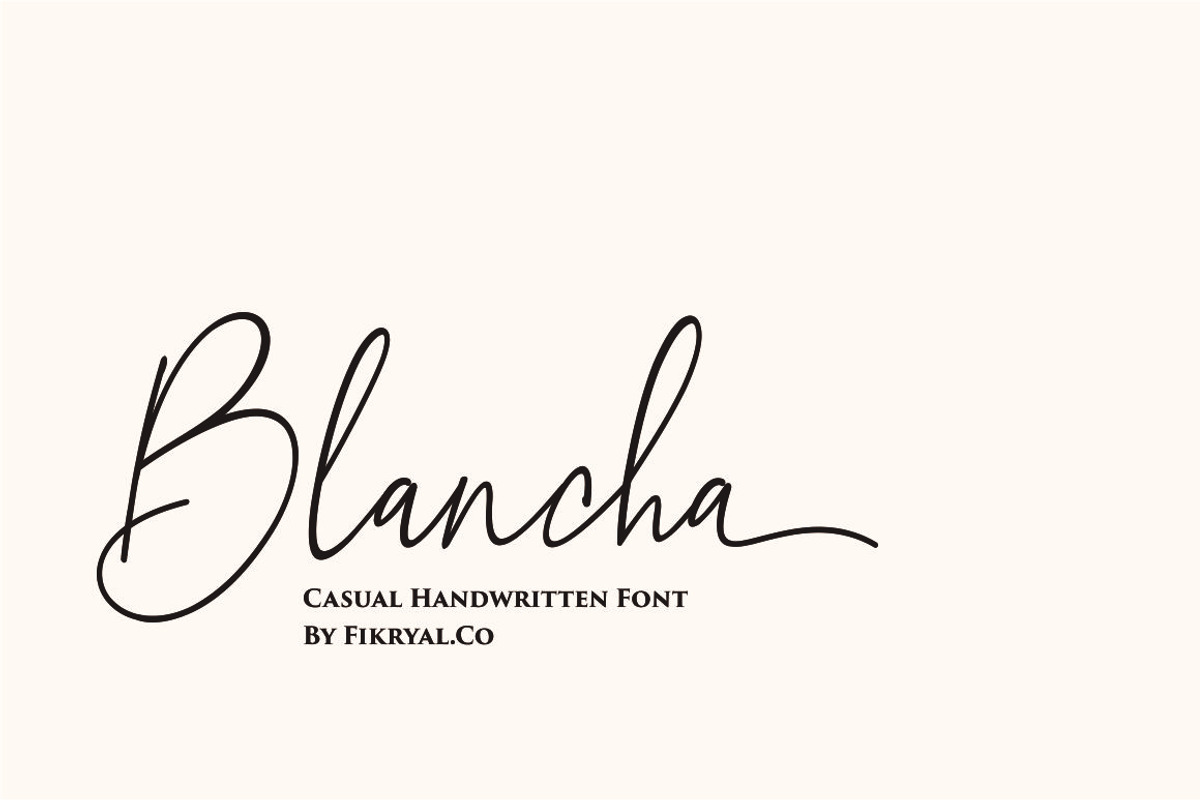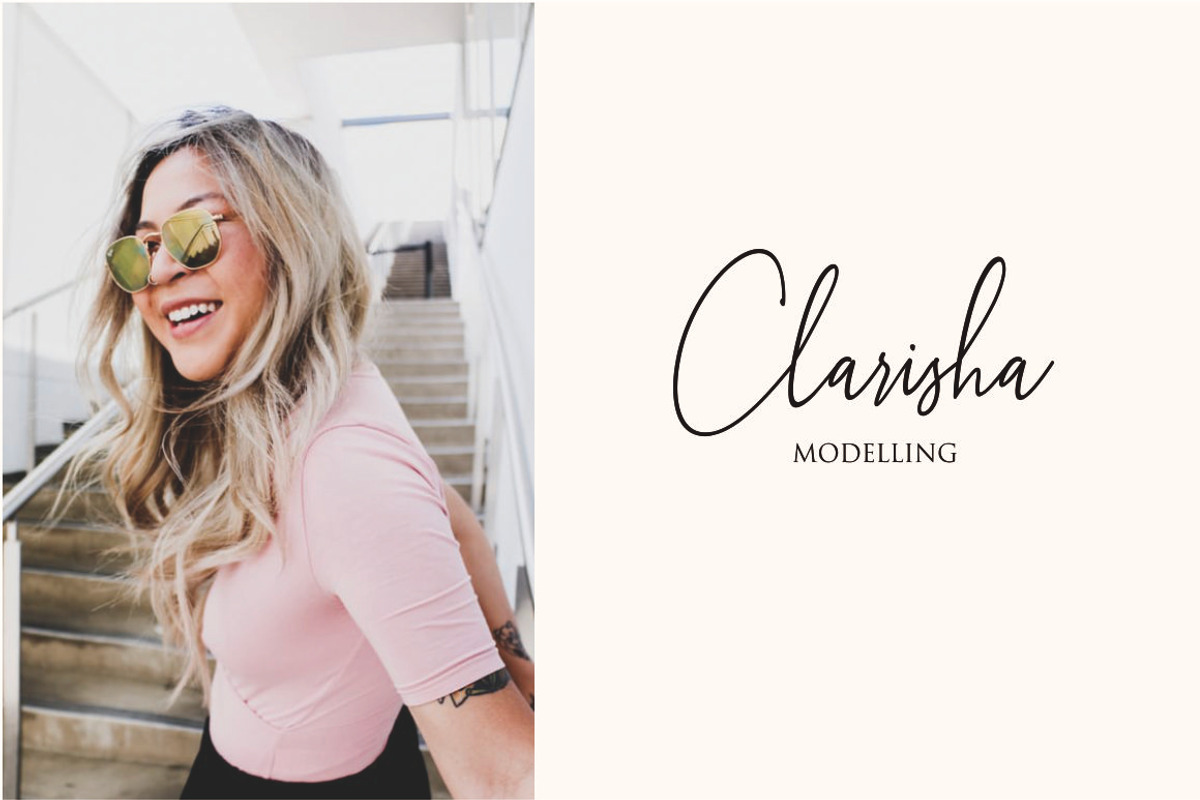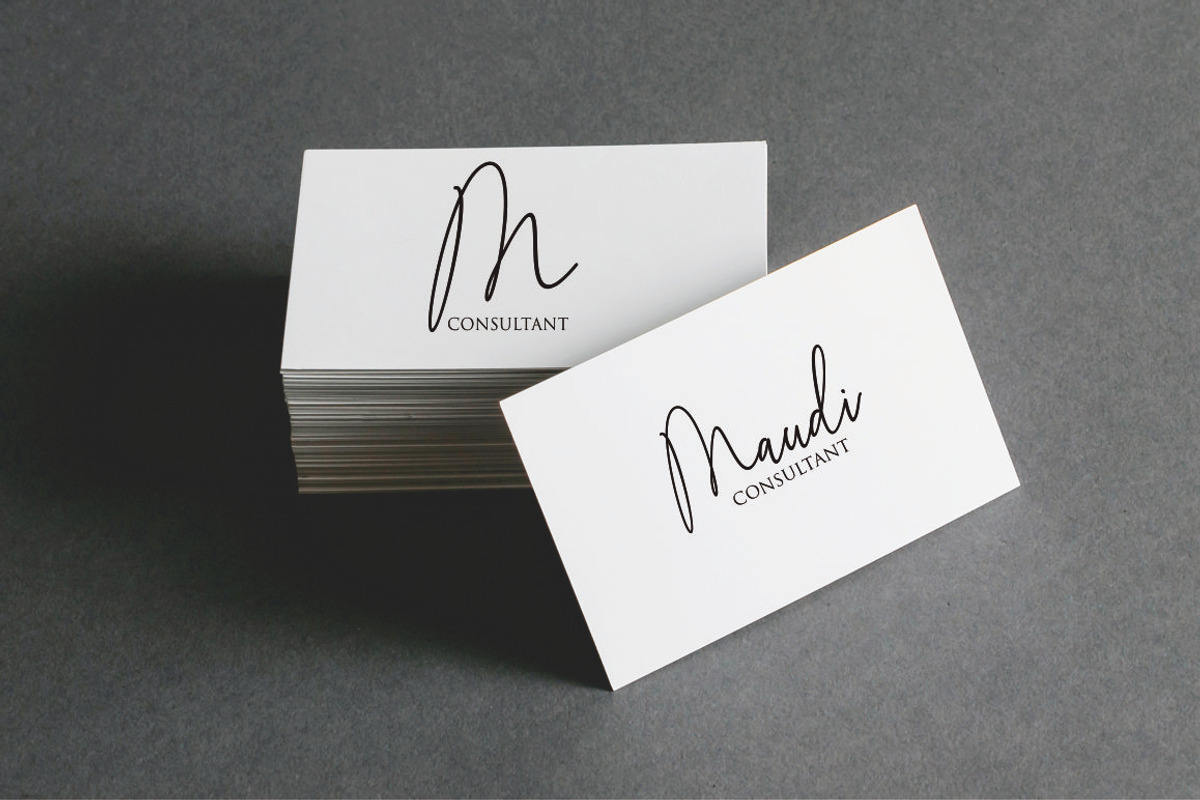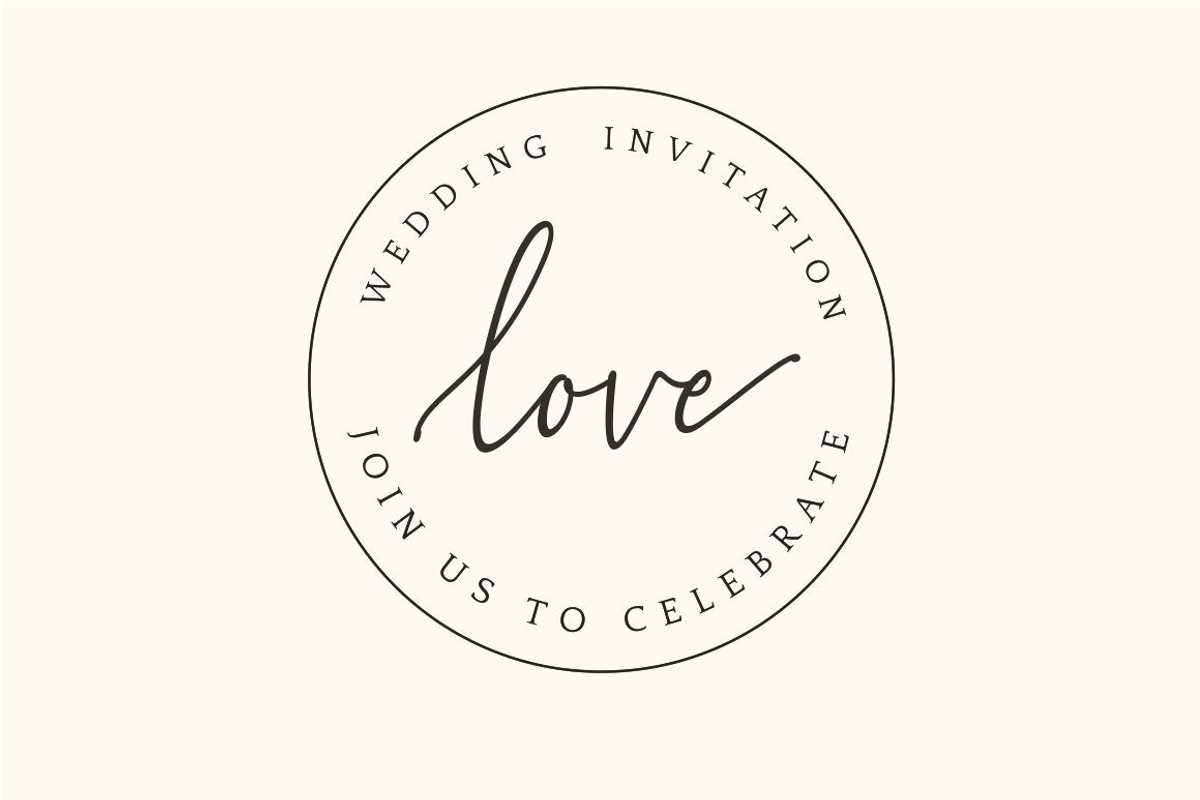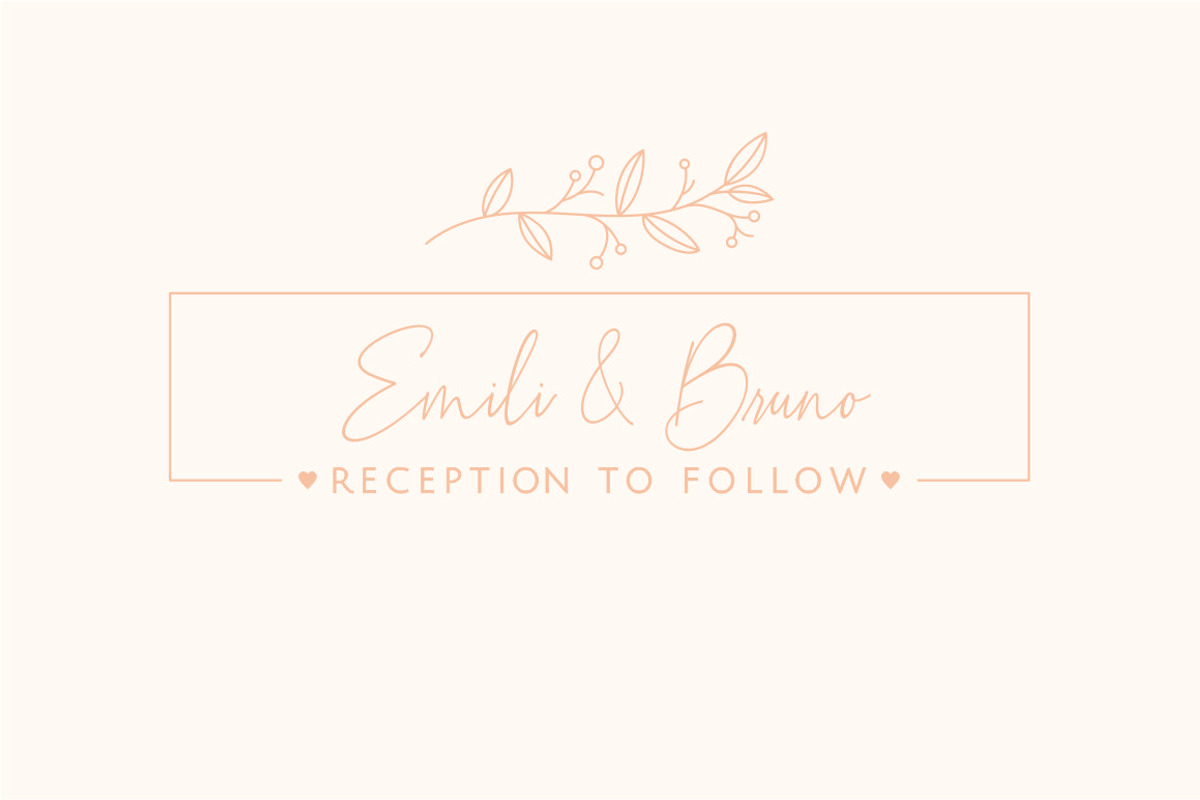
Blancha - Casual Handwritten Font
Blancha is a natural handwritten font, this font Is perfect for logos, invitations, stationery, wedding designs, social media posts, advertisements, product packaging, product designs, label, photography, watermark, special events, or anything.
Blancha comes with a full set of uppercase and lowercase letters, lowercase swashes, multilingual symbols, numerals, punctuation.